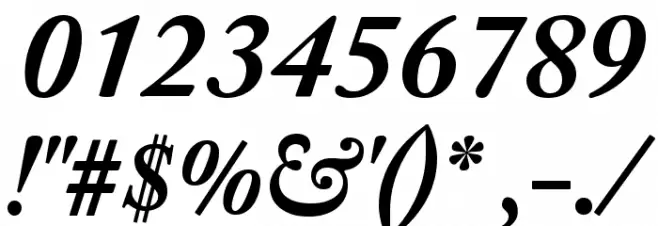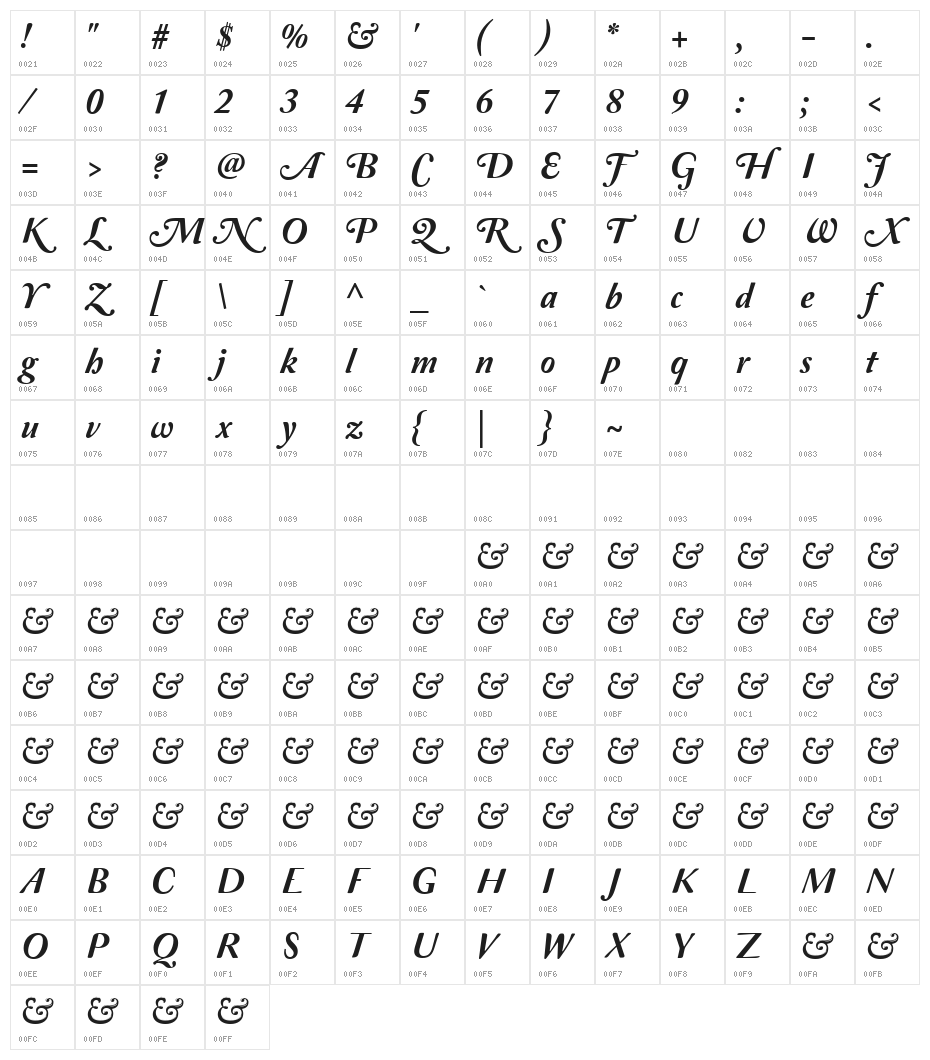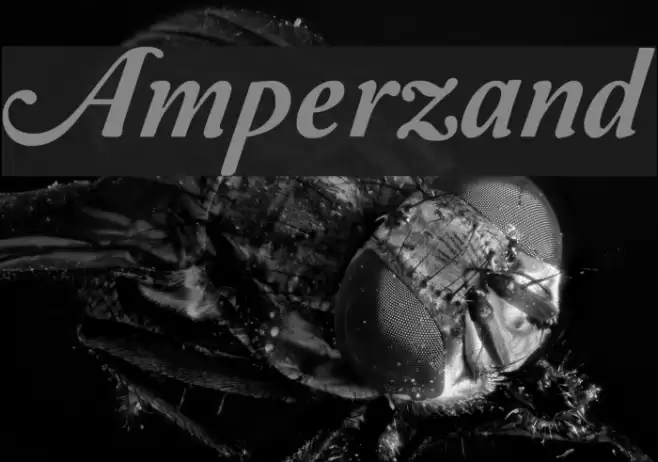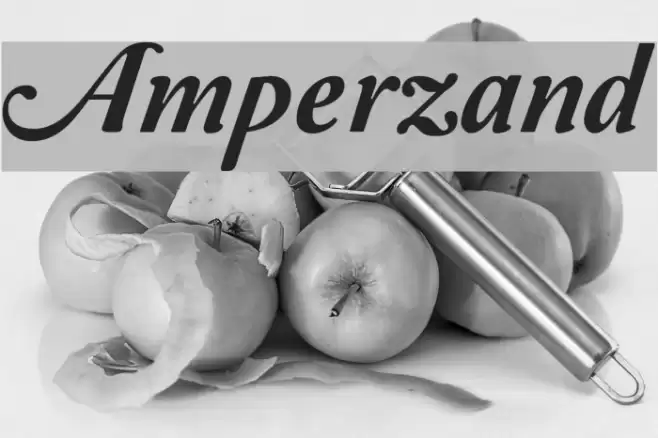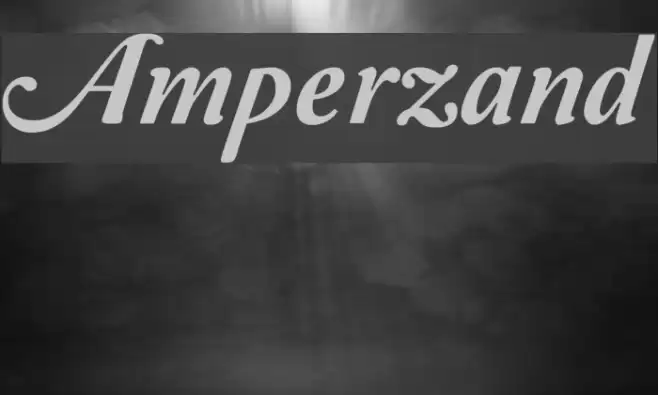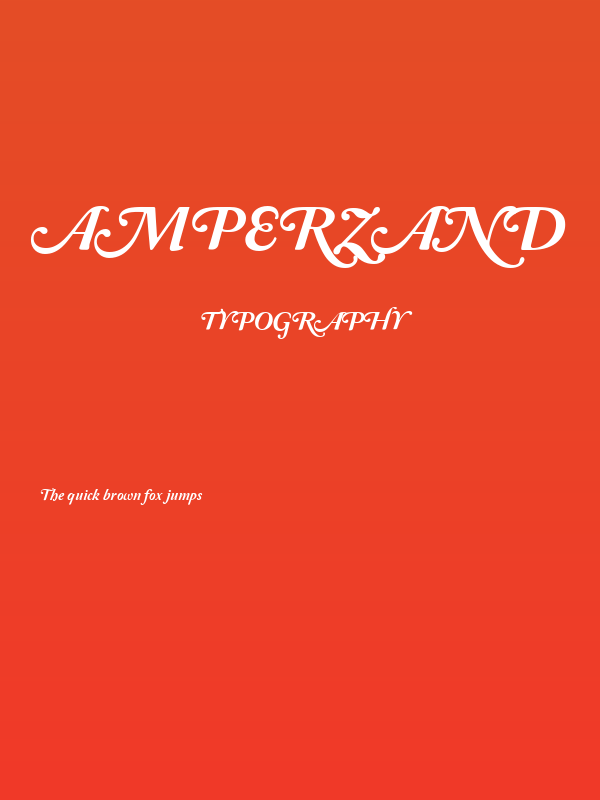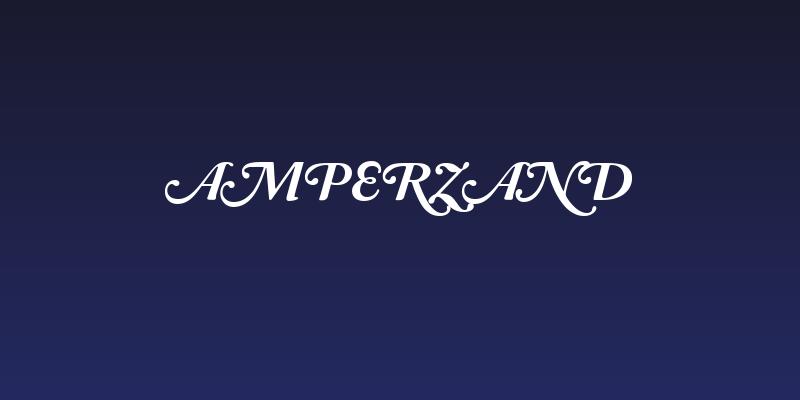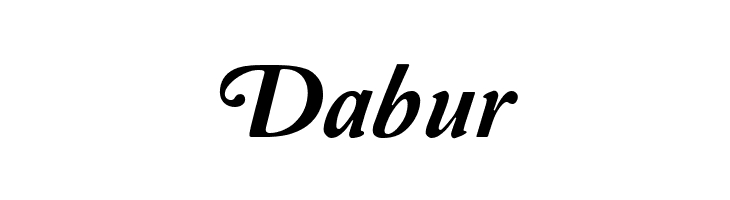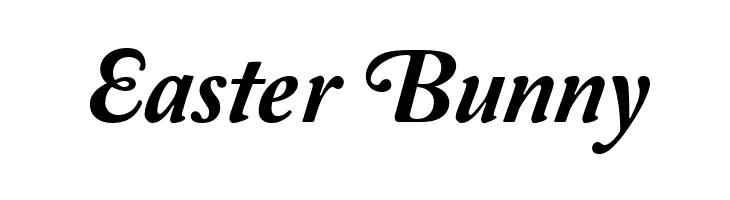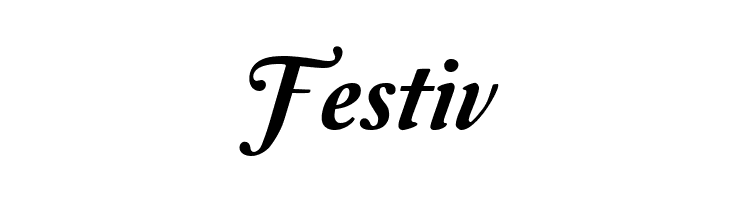
Amperzand Font
Amperzand Description
This font features a classic script style with elegant, flowing curves and a sophisticated appearance. The uppercase letters are characterized by their ornate and decorative flourishes, while the lowercase letters maintain a more subdued yet stylish look. The numerals are bold and clear, ensuring readability. Special characters are designed with the same attention to detail, making them suitable for various decorative purposes. The font's overall aesthetic is reminiscent of traditional calligraphy, offering a timeless and refined look.
Overall StyleClassic
Use CaseHeadlines, Logos, Invitations
Proposed ProjectsIdeal for wedding invitations, formal event programs, elegant branding, and decorative signage.